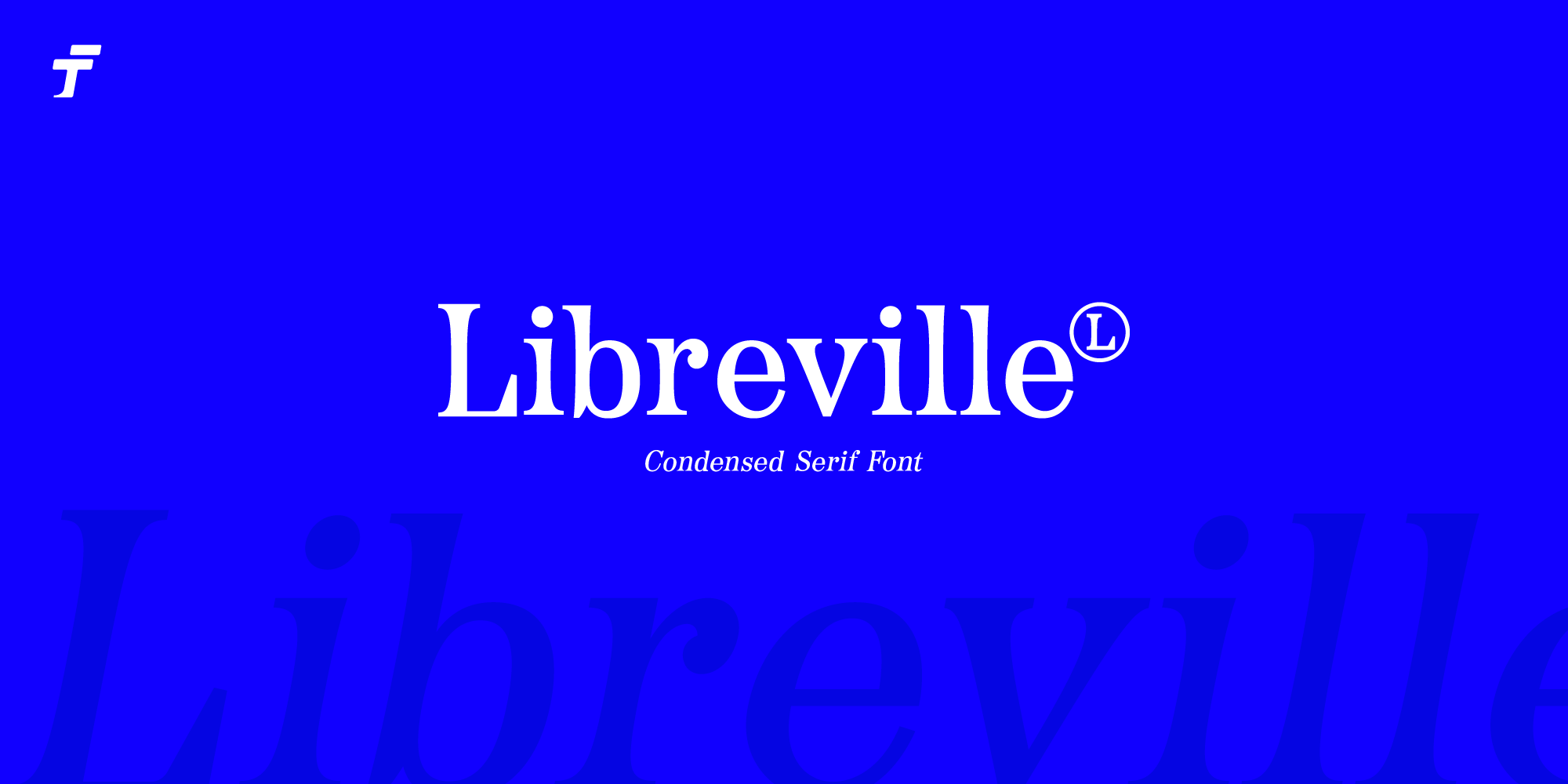
Libreville Font is perfect for African cultural center branding, international development organization materials, multicultural festival posters, global nonprofit communications, African restaurant signage, cultural heritage museum exhibits, world music event promotions, and humanitarian campaign designs.
Libreville Font is exciting because it celebrates the vibrant spirit of African culture with its rhythmic letterforms that echo the rich traditions of West African artistry and storytelling. The typeface embodies the warmth and community spirit of African heritage, creating an immediate sense of cultural authenticity and global connection that resonates with audiences who appreciate diverse cultural expressions.
Libreville Font family includes Light, Regular, Medium, Bold, and Heavy weights, complemented by stylized alternates and culturally-inspired decorative elements, offering designers authentic typography tools for creating respectful and engaging communications that honor African cultural traditions and contemporary global perspectives.
Whether you're developing materials for cultural exchange programs, designing African diaspora community events, or creating international awareness campaigns, Libreville Font Free Download provides unmatched cultural sensitivity and authentic appeal. This remarkable typeface perfectly balances traditional African design influences with contemporary global communication needs, ensuring your messages resonate with diverse audiences while maintaining respectful cultural representation. The font's expressive character variations and organic rhythm make it particularly effective for organizations committed to cross-cultural understanding and global community building. Cultural institutions and international organizations consistently select Libreville Font when projects require typography that communicates respect, unity, and the kind of authentic cultural appreciation that bridges geographical and cultural divides, making it essential for humanitarian branding, cultural education materials, and any application where thoughtful typography can celebrate the rich contributions of African culture to our shared global heritage and promote understanding across all communities.